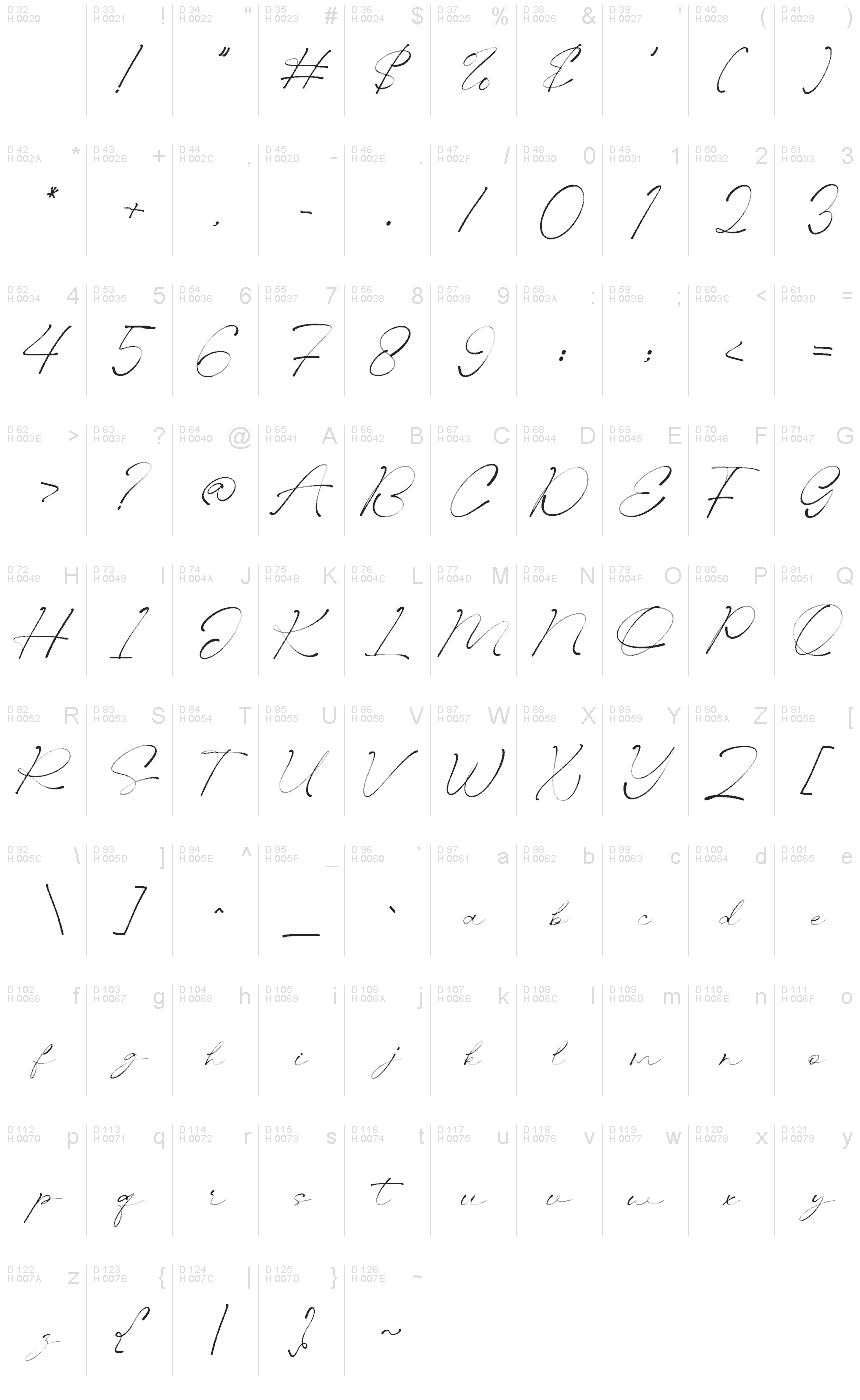
NCL Molqtis
NCL Molqtis font is a free handwritten light font from Enxyclo Studio with a delicate signature style that combines fluency and elegance. Designed as an inspirational tool to create sophisticated designs, the typeface can easily go modern or classic and become a part of both contemporary applications in branding, editorial design, or personal stationery.